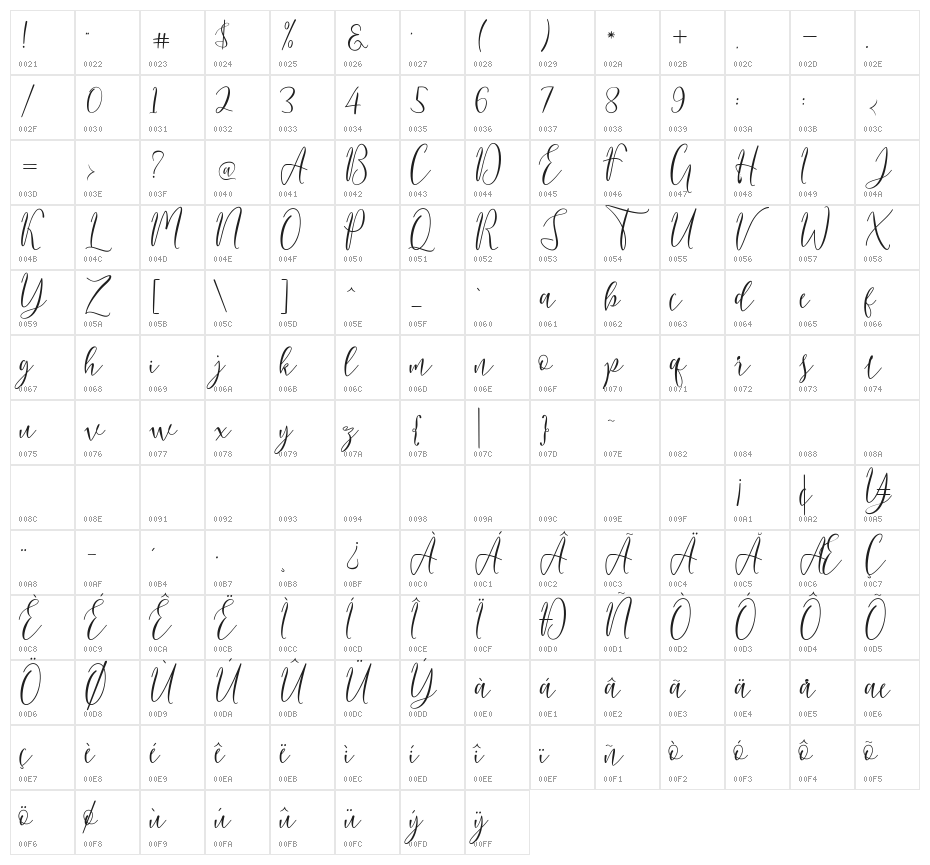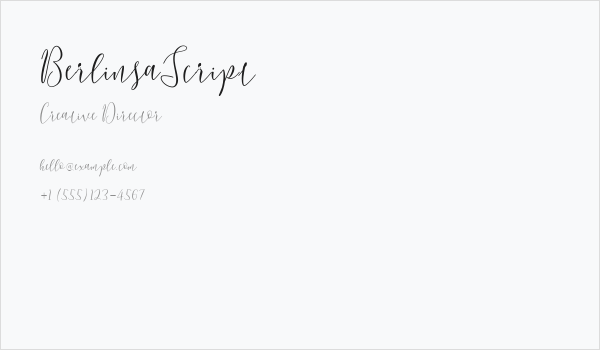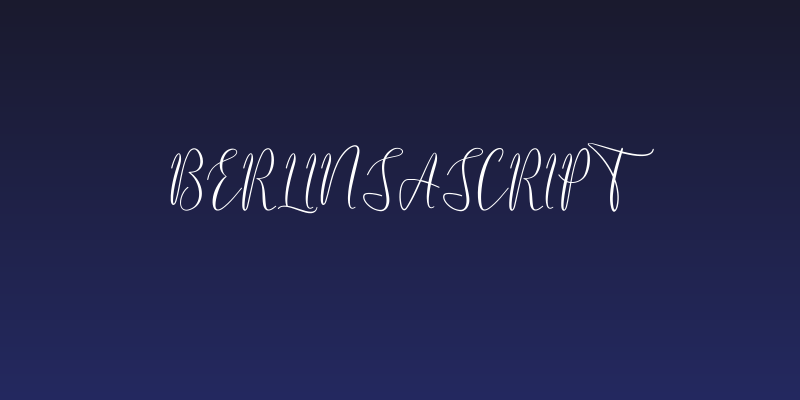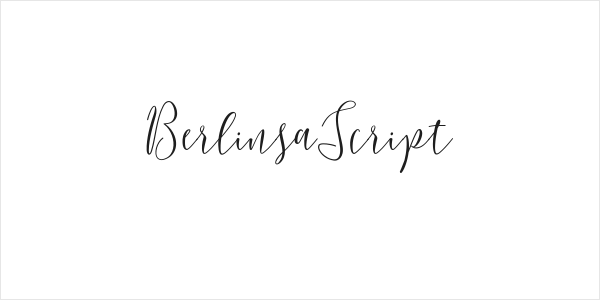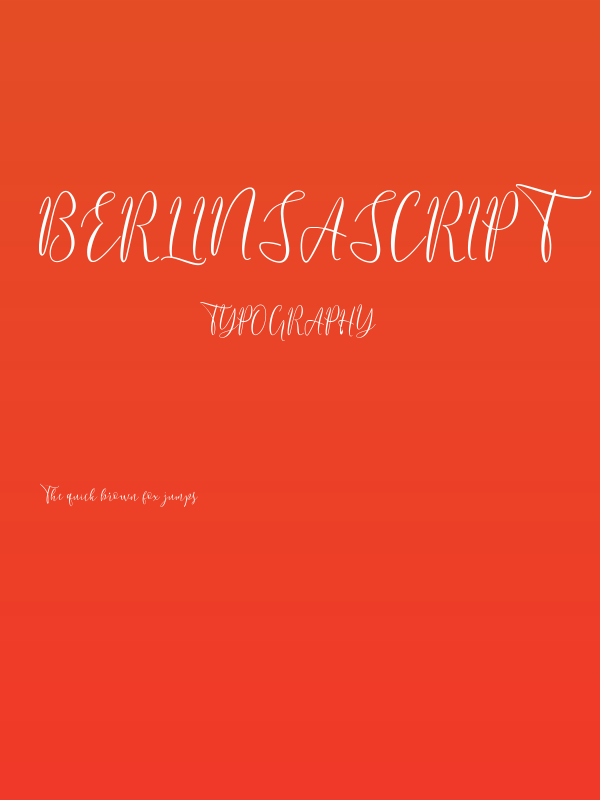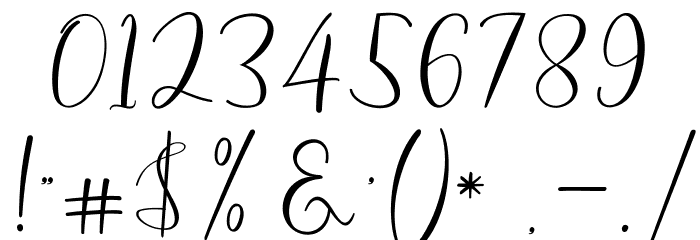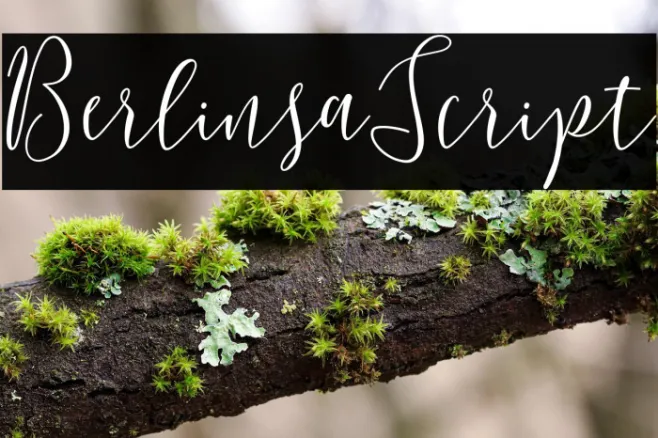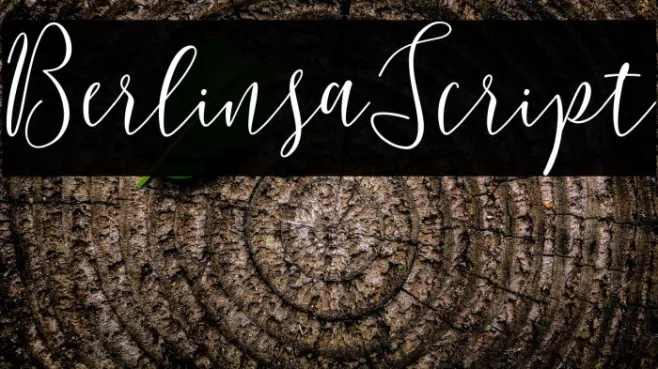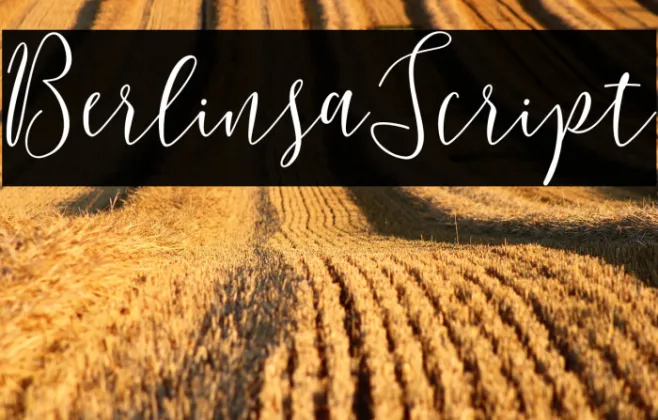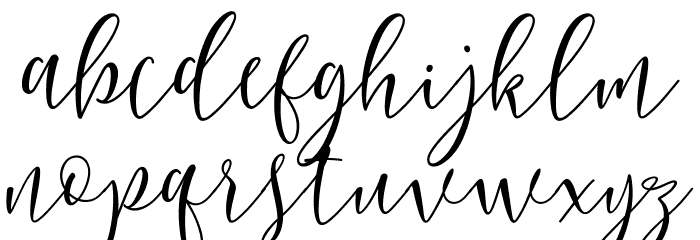
BerlinsaScript Font
BerlinsaScript Description
This font features a flowing, cursive style with elegant, sweeping strokes that give it a handwritten appearance. The uppercase letters are tall and graceful, with a slight slant that adds to the fluidity of the design. The lowercase letters are equally stylish, maintaining a consistent rhythm and flow throughout. The numerals are clear and distinct, complementing the overall script style. Special characters are thoughtfully designed to match the aesthetic, making this font versatile for various uses. Its artistic flair makes it suitable for creative projects that require a personal touch.